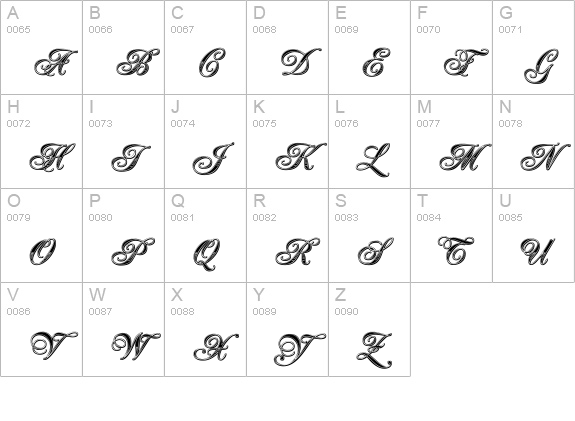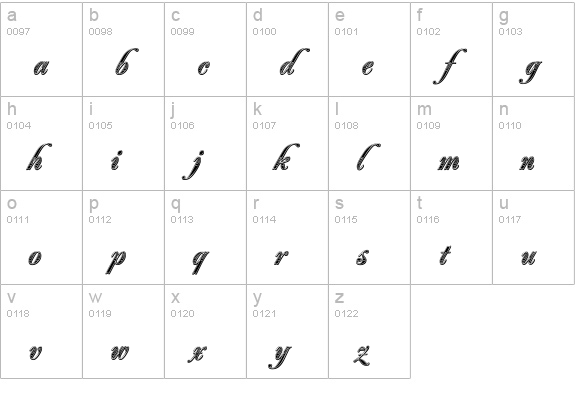
Great Circus Clean Bold is a strong, high-contrast variant in the Great typeface family \xE2\x80\x94 well suited to headlines, attention-grabbing titles, and strong calls-to-action.
Great Circus Clean Bold is a whimsical and playful display font that captures the essence of a lively circus atmosphere. With its bold and clean lines, this font is sure to grab attention and make a statement in any design project. Whether you're working on a poster, flyer, or logo, Great Circus Clean Bold is the perfect choice to add a touch of fun and excitement. What makes this font even more appealing is that it is available for free download at FontsMarket.com. This means that you can easily access and use this delightful font without any cost, making it a fantastic option for designers looking to add a unique and eye-catching element to their creations. So don't miss out on the opportunity to enhance your projects with the vibrant charm of Great Circus Clean Bold!